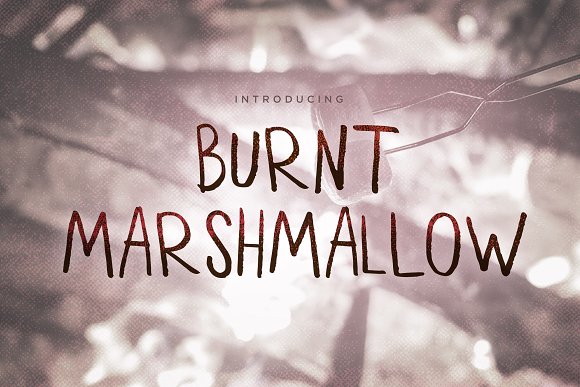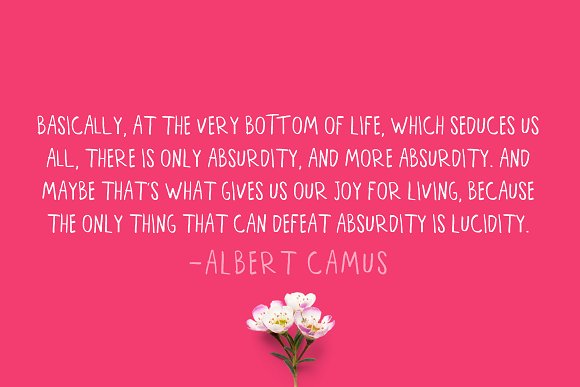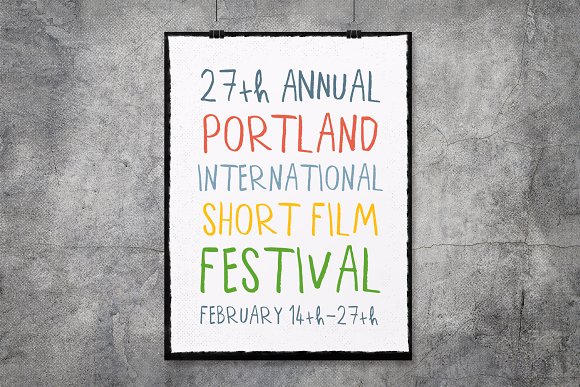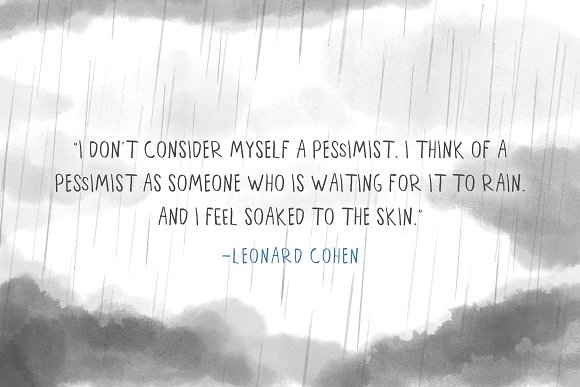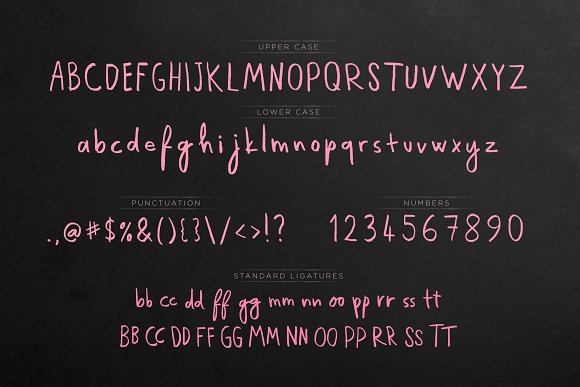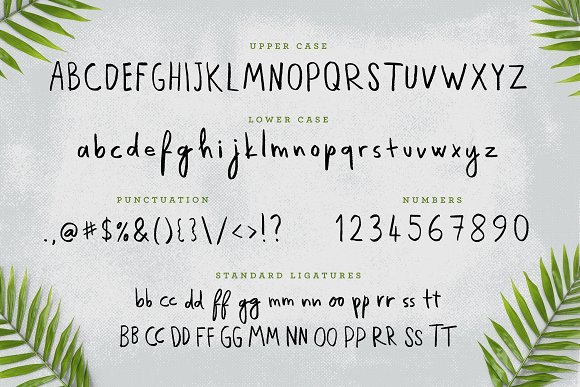
Burnt Marshmallow Font
Burnt Marshmallow is a casual and clean handwritten font with a playful attitude. This font will communicate your message in a fun and accessible way.
Burnt Marshmallow font comes with upper and lowercase characters, ligatures, numbers and punctuation.